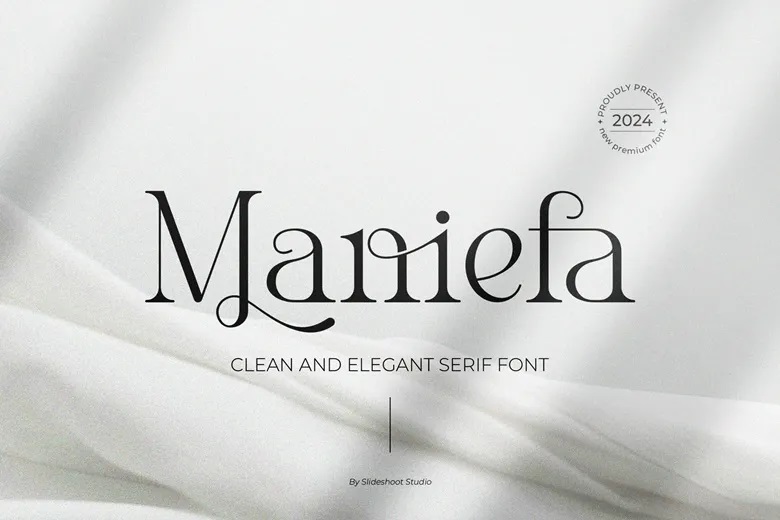
Maniefa Font
Maniefa is a clean serif typeface, which looks sophisticated and classy. It creates interest and lifts any design. It is ideal for the invitation card, logos, movies title, movie title and name, business cards, books title, brand name, and other designs.
Maniefa Serif Font